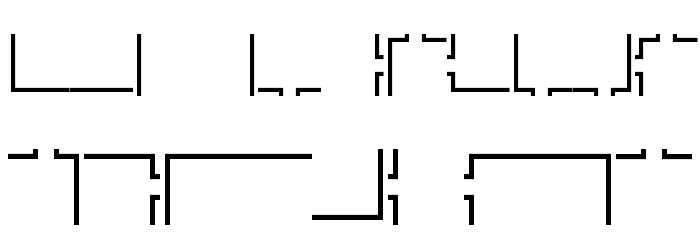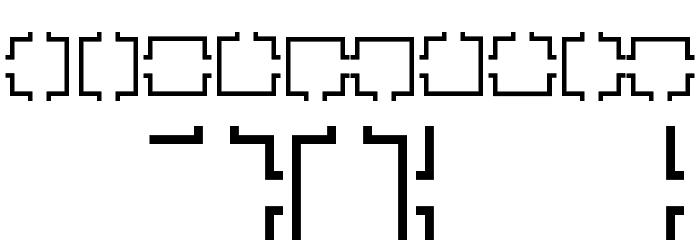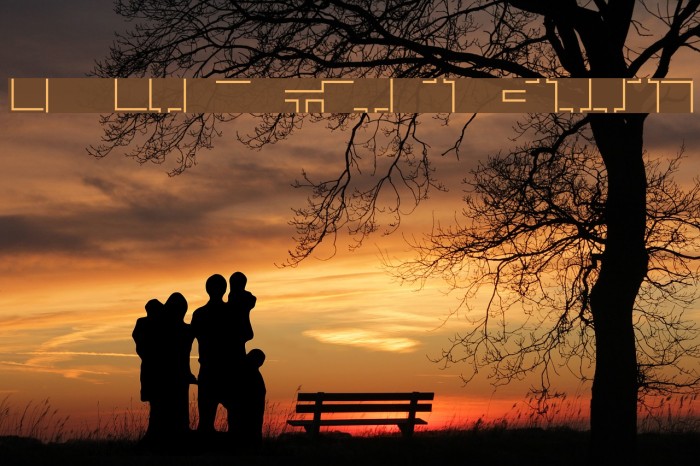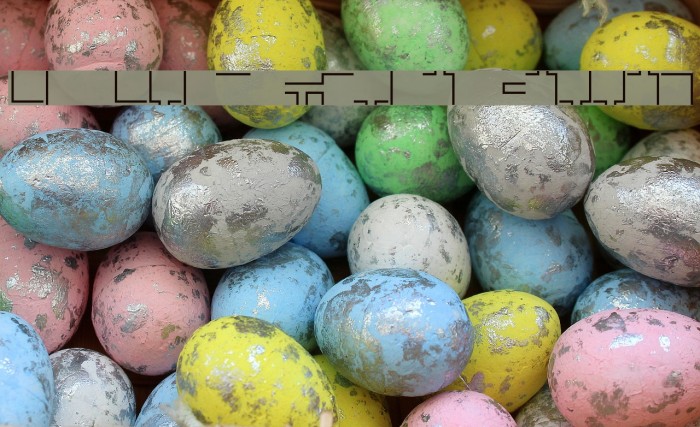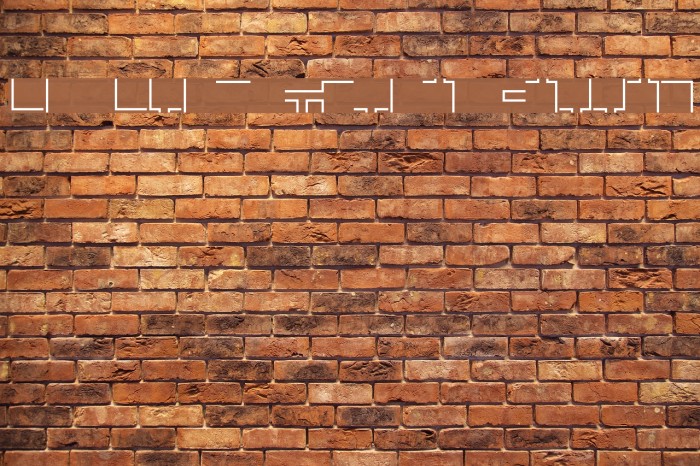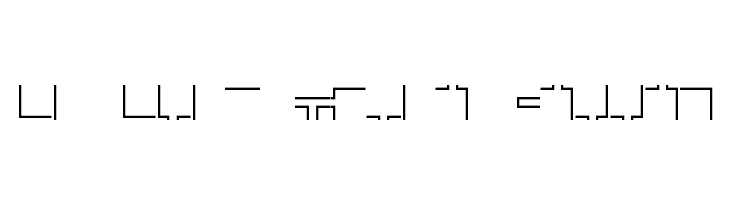
Maze Maker Dungeon Hollow Font
This font features a unique, maze-like design with hollow, angular shapes that mimic the appearance of a labyrinth. Each character is constructed with a series of straight lines and right angles, creating a geometric and structured look. The hollow interiors add a sense of depth and complexity, making the font visually intriguing and suitable for creative projects. The overall appearance is reminiscent of architectural blueprints or digital circuit designs, providing a modern and technical feel. The characters are evenly spaced, maintaining a consistent visual flow across the text.
A maze-inspired, hollow font with geometric, angular shapes.
- Proposed Projects: Ideal for video game design, escape room branding, tech-themed posters, or any project requiring a modern, puzzle-like aesthetic.
- Use Case: Logos, Posters, Game Design